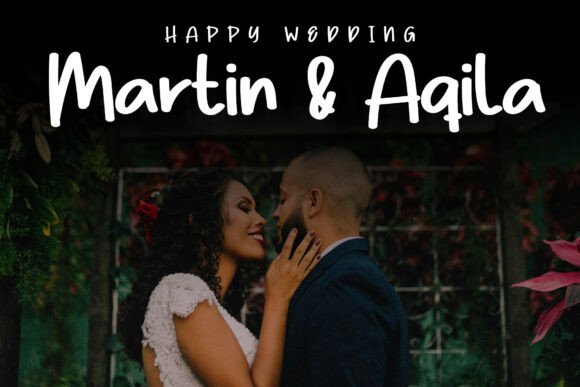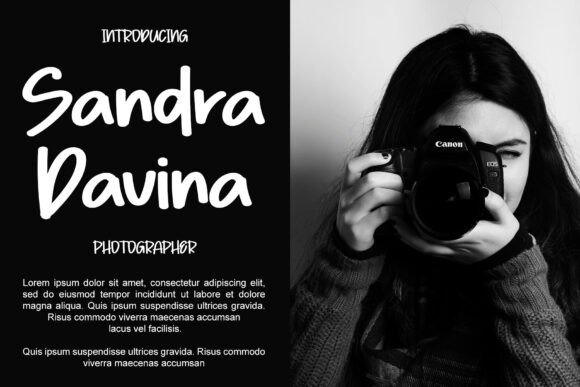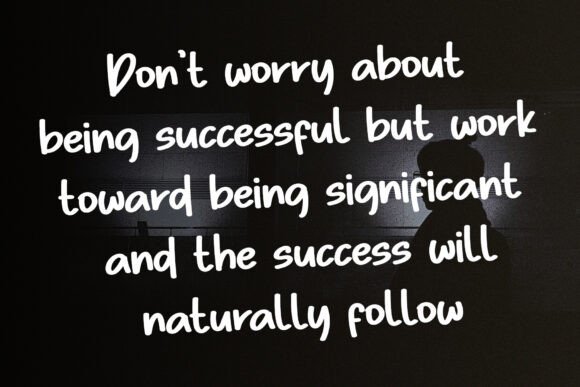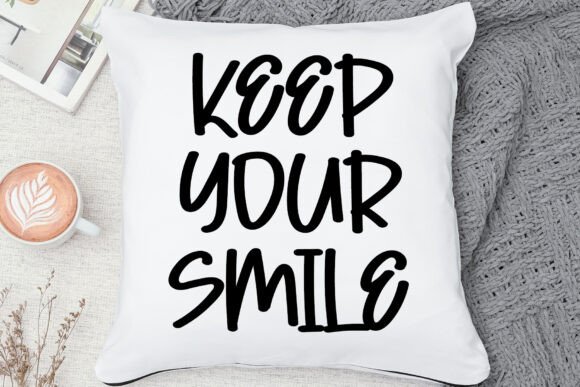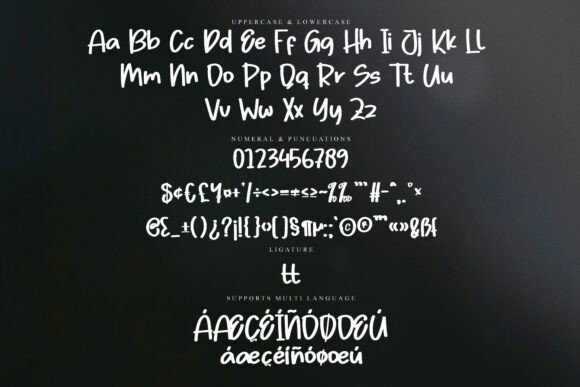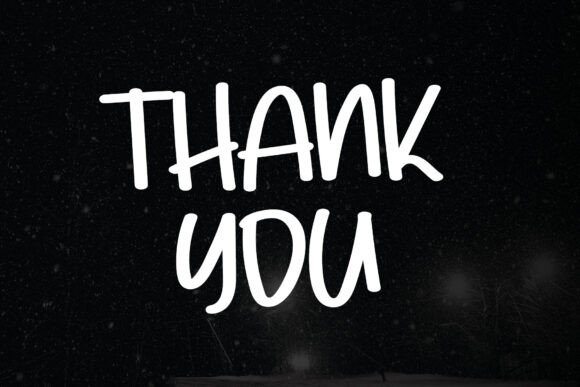
Introduction to Black Stork Font
Black Stork is a cute and charming display font.
Whimsical and a bit quirky, this font will brighten up each of your designs Add it confidently to your projects, and you will love the results.
Key Features of Black Stork Font
Black Stork Font offers exceptional quality and versatility, making it a valuable addition to your design toolkit. Whether you’re creating for personal projects or commercial use, Black Stork Font delivers professional results.